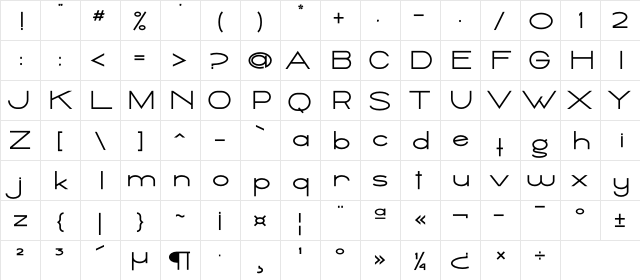
Ballado Regular
| Designer | Sarwo Edhi Prayitno |
Design Context for Ballado Typeface
Ballado offers clean, dependable letterforms without strong stylistic allegiance, making it a practical choice for designers who need flexibility.
Pro Tip: Pair Ballado with a font of contrasting weight or personality to build a more expressive typographic hierarchy.